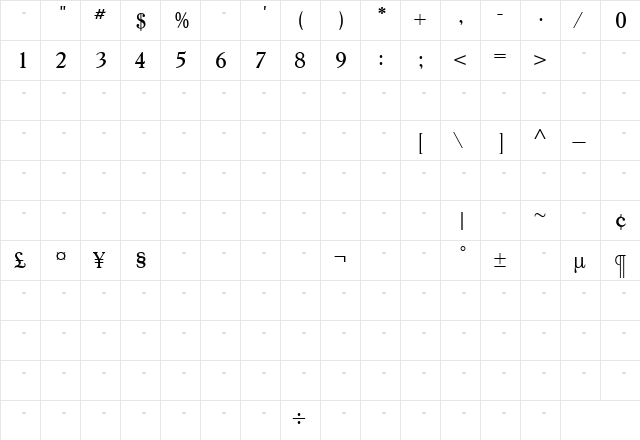
GoudY38MediumTab Medium
Design Context for GoudY38MediumTab Typeface
GoudY38MediumTab is a composed and adaptable typeface that performs quietly and consistently across a wide range of design contexts.